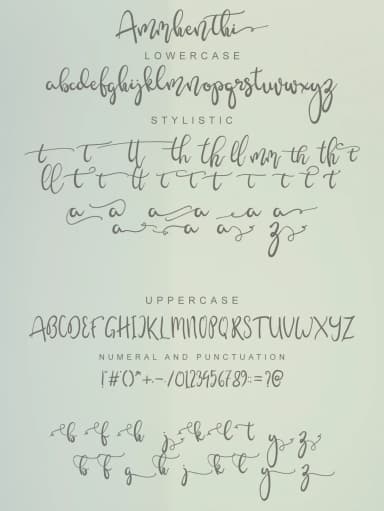
Ammenthi by Pineungtype and Missinklab is a contemporary handwritten script that brings personalized flair and modern aesthetic sensibility to any creative endeavor. This distinctive font skillfully balances the free-flowing, organic nature of authentic hand-lettering with refined letterforms and thoughtful spacing, making it equally suited to elegant formal applications and more casual, approachable design contexts.
Whether you're designing wedding invitation suites, creating product labels for Etsy sellers, developing packaging for boutique cosmetics brands, or crafting personalized stationery and greeting cards, Ammenthi delivers a warm, authentically human touch that resonates deeply with contemporary consumers. The font's fluid baseline and gestural character strokes work particularly well for high-end branding projects, luxury product labels, and bespoke design work that demands genuine personality without sacrificing legibility. Its approachable elegance makes it especially valuable for lifestyle brands, stationery designers, and creative professionals seeking a script font with authentic warmth and contemporary sophistication.
The typeface includes a comprehensive character set supporting extended alphabets and multiple language requirements, offering practical versatility alongside visual appeal. With its contemporary sensibility and genuinely adaptable personality, Ammenthi transforms everyday designs into memorable visual experiences that feel handcrafted and intentional. Discover Ammenthi on Creative Fabrica to bring sophisticated handwritten warmth and character to your next creative project.
Ammenthi Font is a script font that shines as a display or heading face. Pair it with a clean sans-serif or serif font for body text β the contrast creates a clear hierarchy while the two styles stay balanced and easy to read.